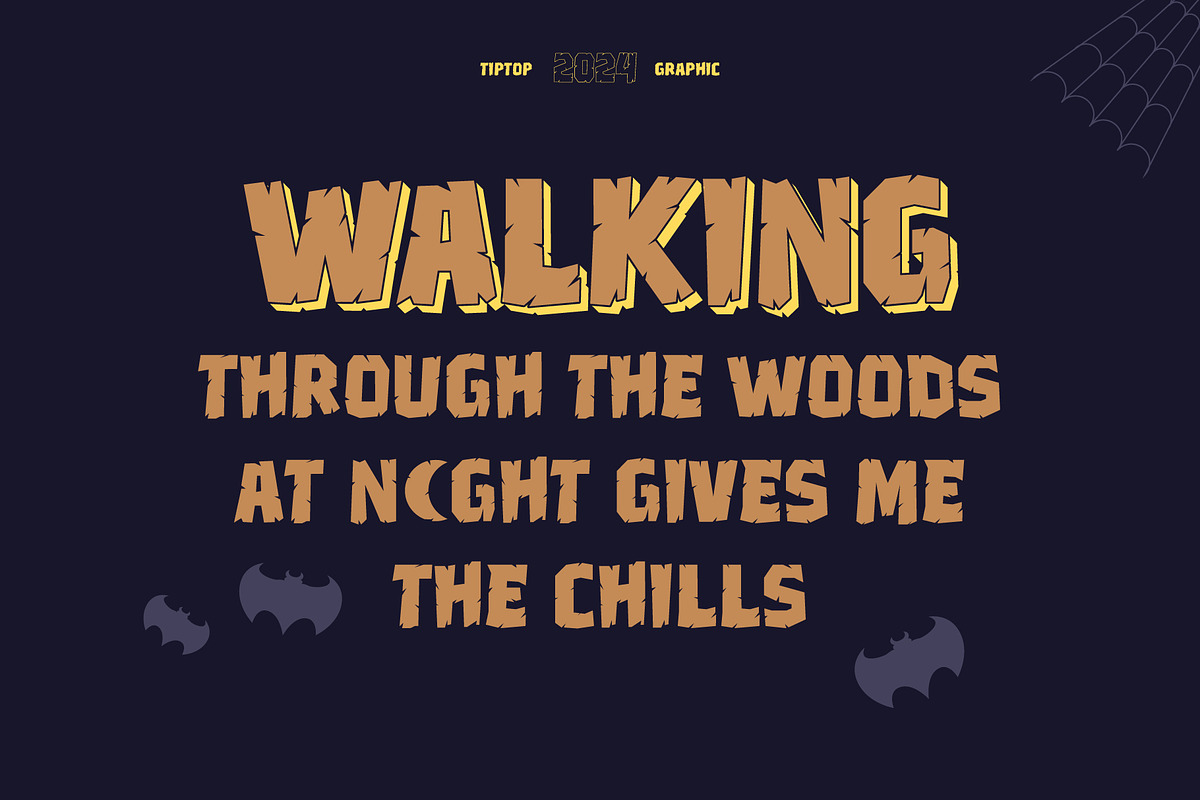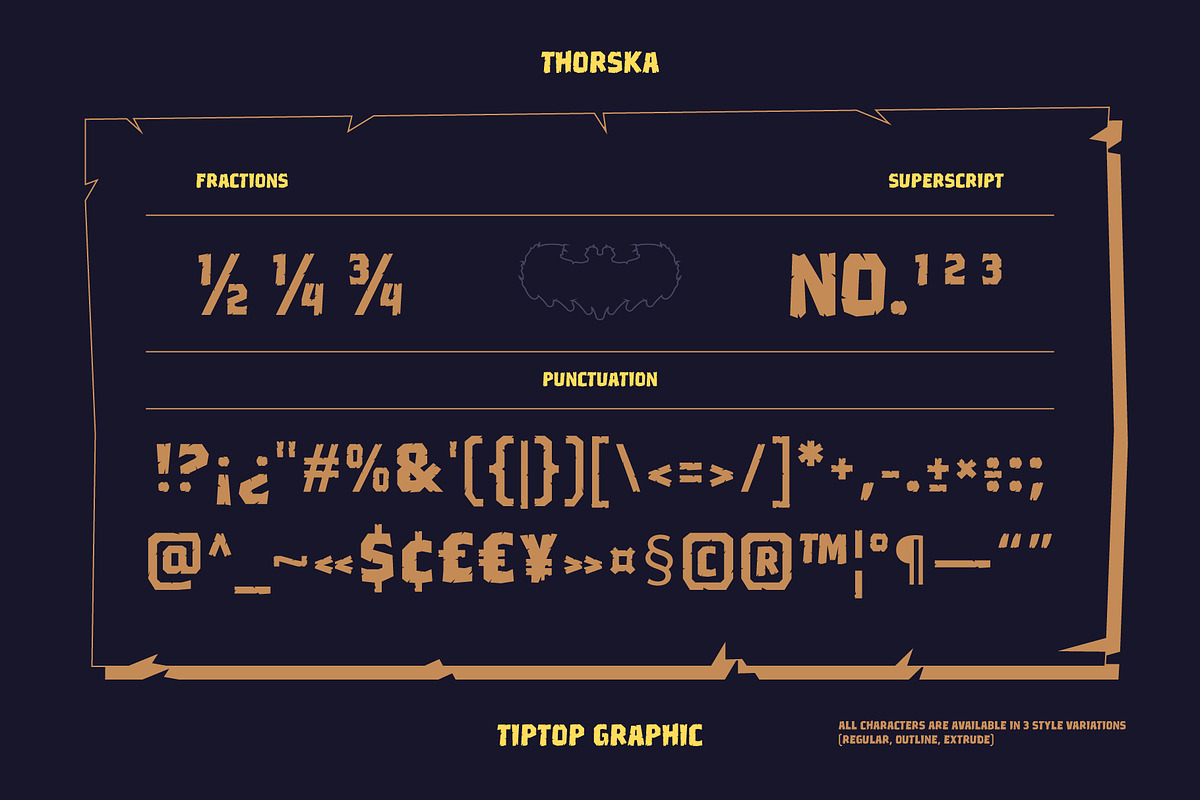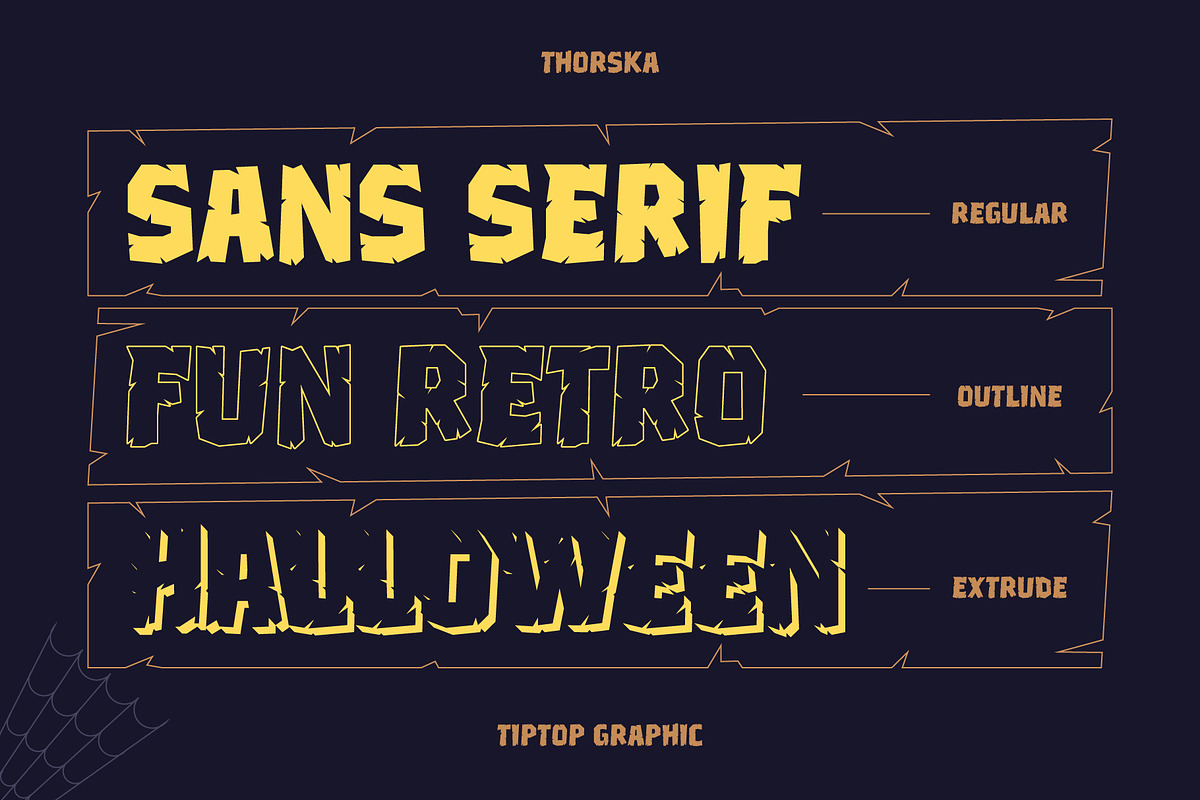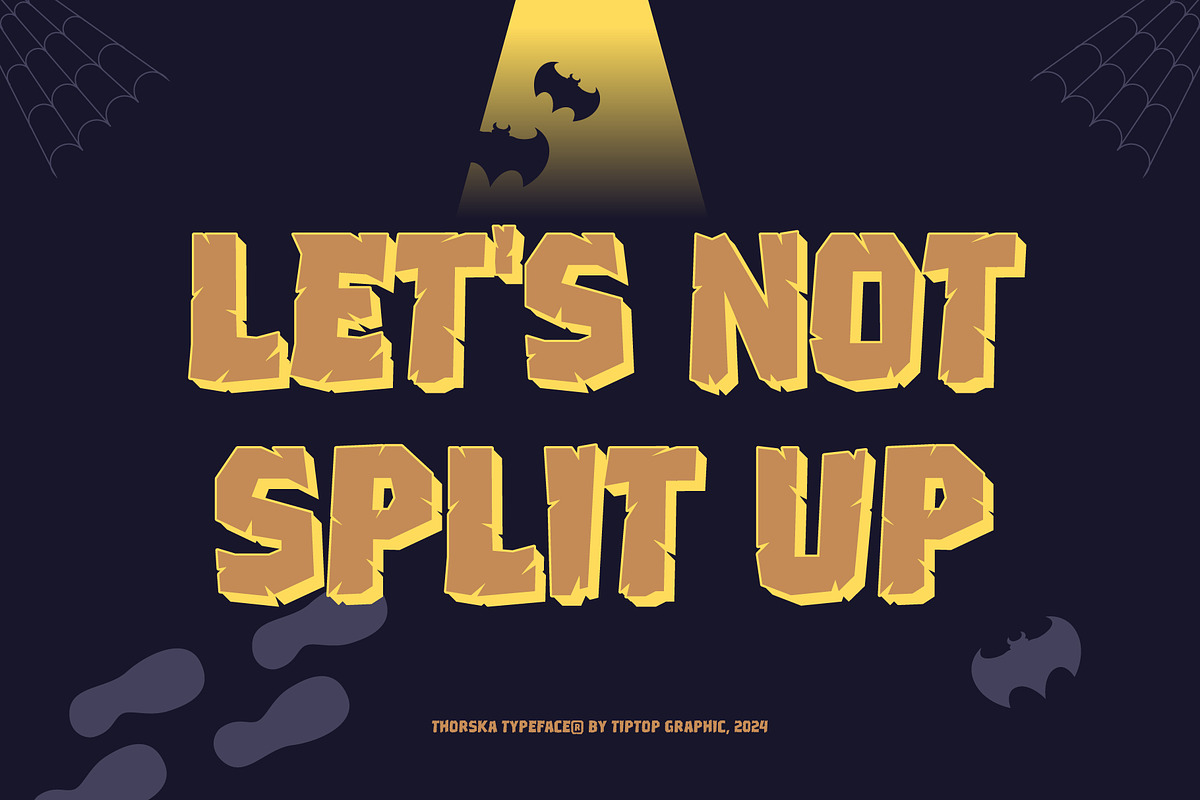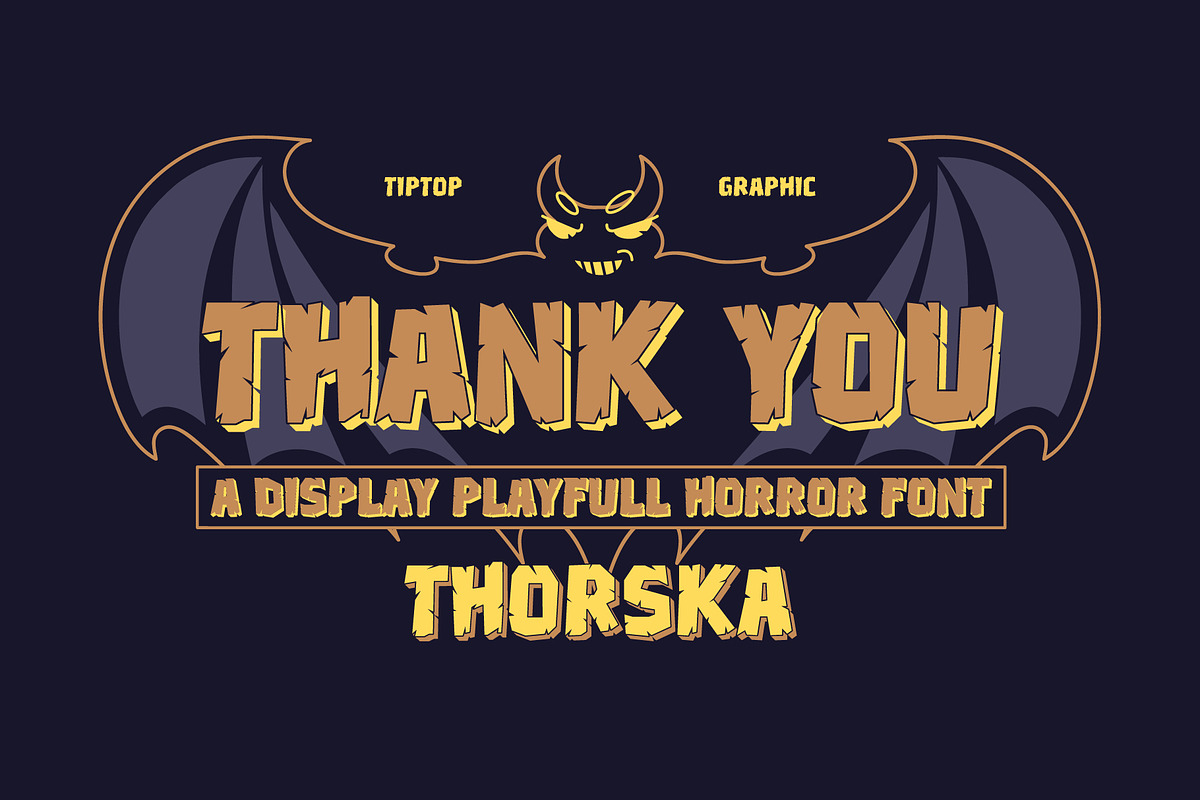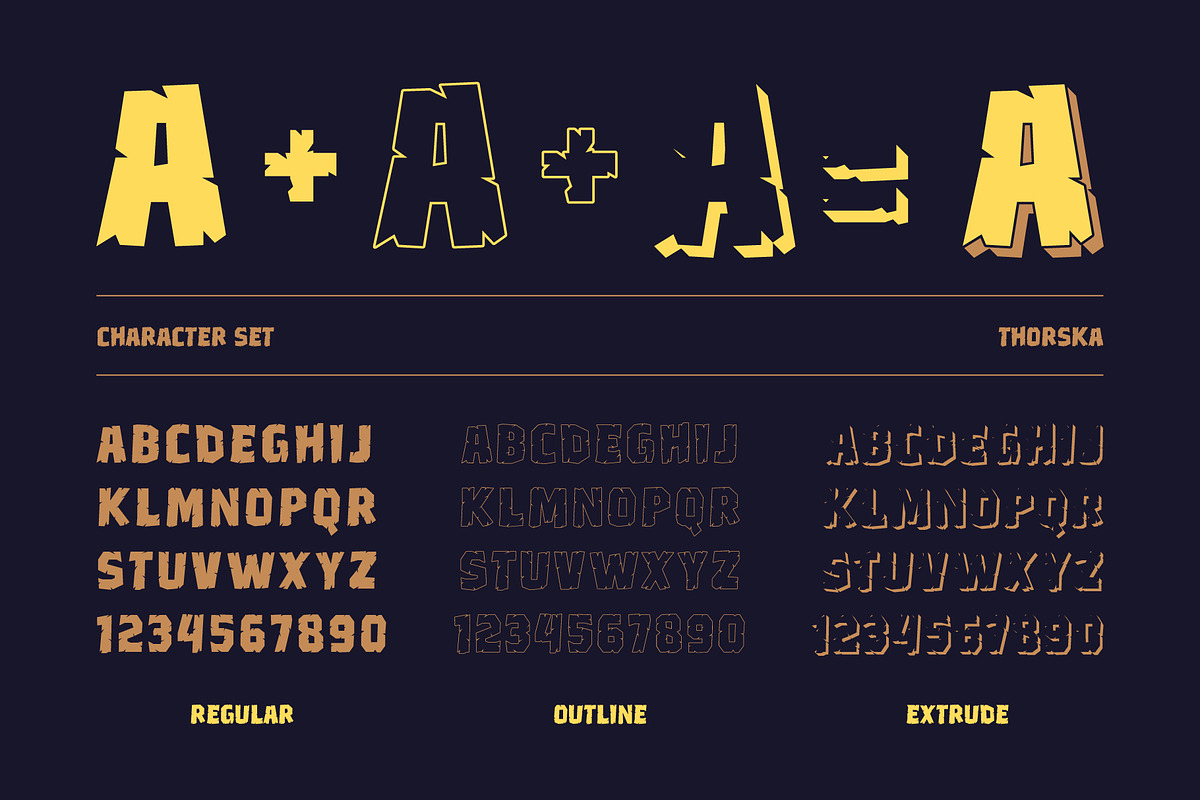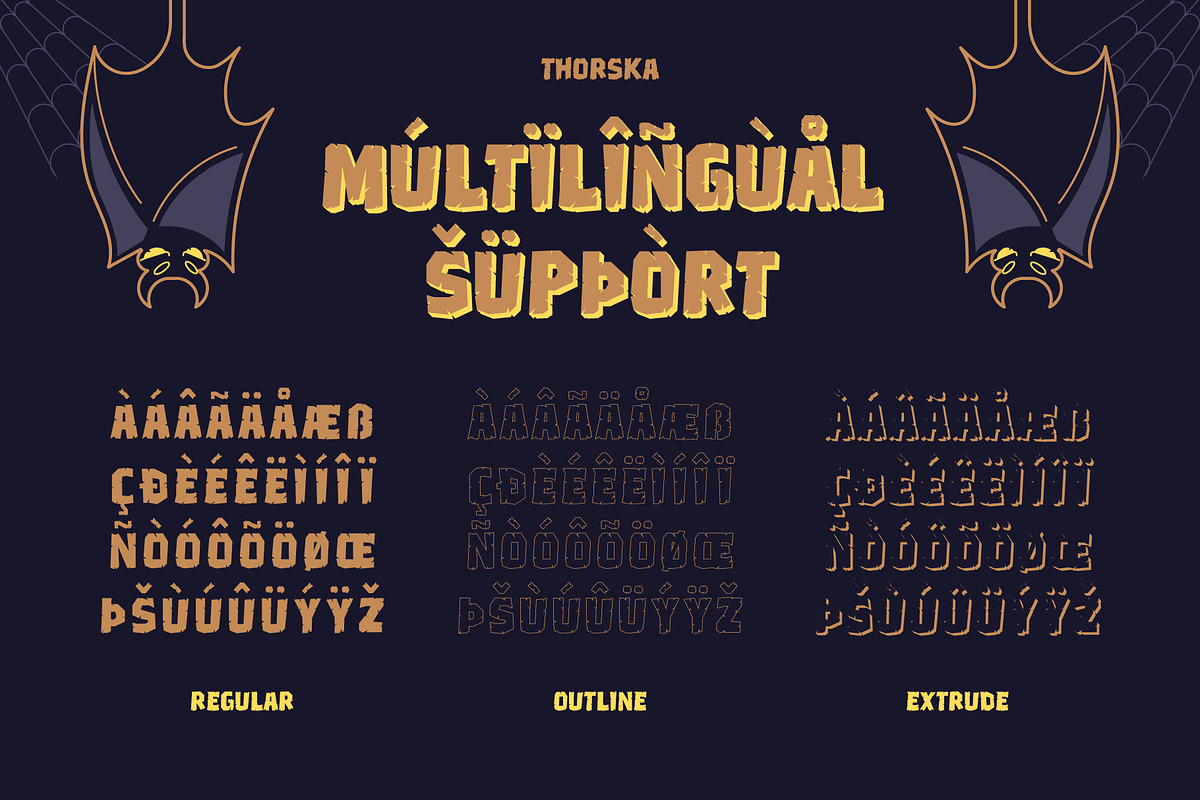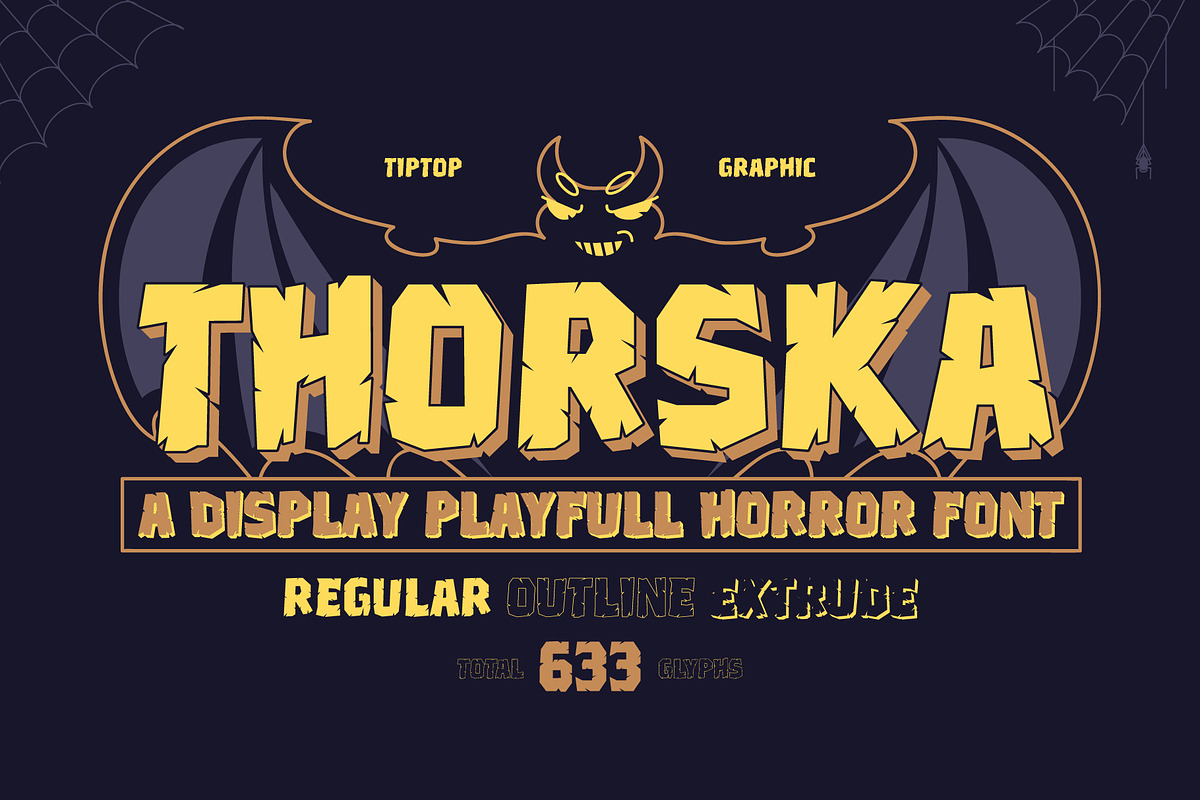
Thorska – Display Playful Horror
Thorska – Display Playful Horror Font
Thorska is a vibrant throwback to the 30’s Retro Halloween blending aesthetics with a playful horror twist. This typeface evokes the charm of vintage Halloween designs, with bold and quirky lettering that brings a sense of fun and fright. Perfect for spooky-themed projects, it strikes a balance between nostalgia and creativity, making it ideal for posters, party invites, or any design that needs a touch of retro flair with a dash of eerie playfulness.
Thorska features:
- Character Set (All Caps)
- Punctuation & Numbers
- Layered Font (Regular, Outline, Extrude)
Elevate and explore the design possibilities with this 30’s Retro Halloween Design Font!